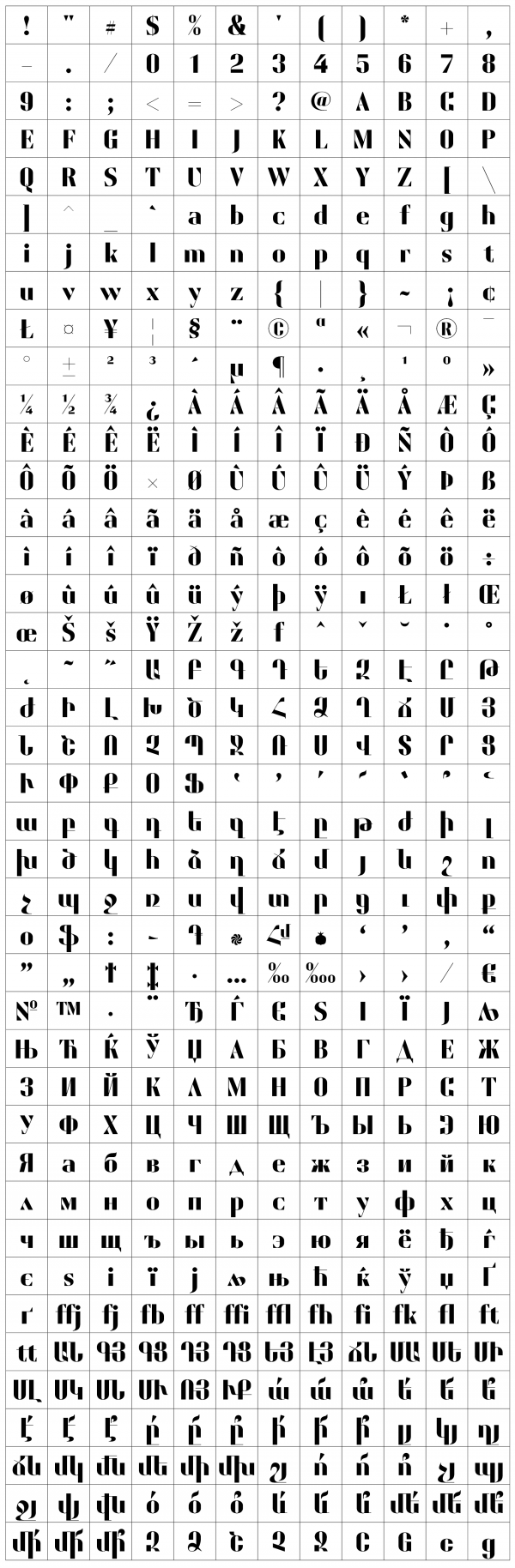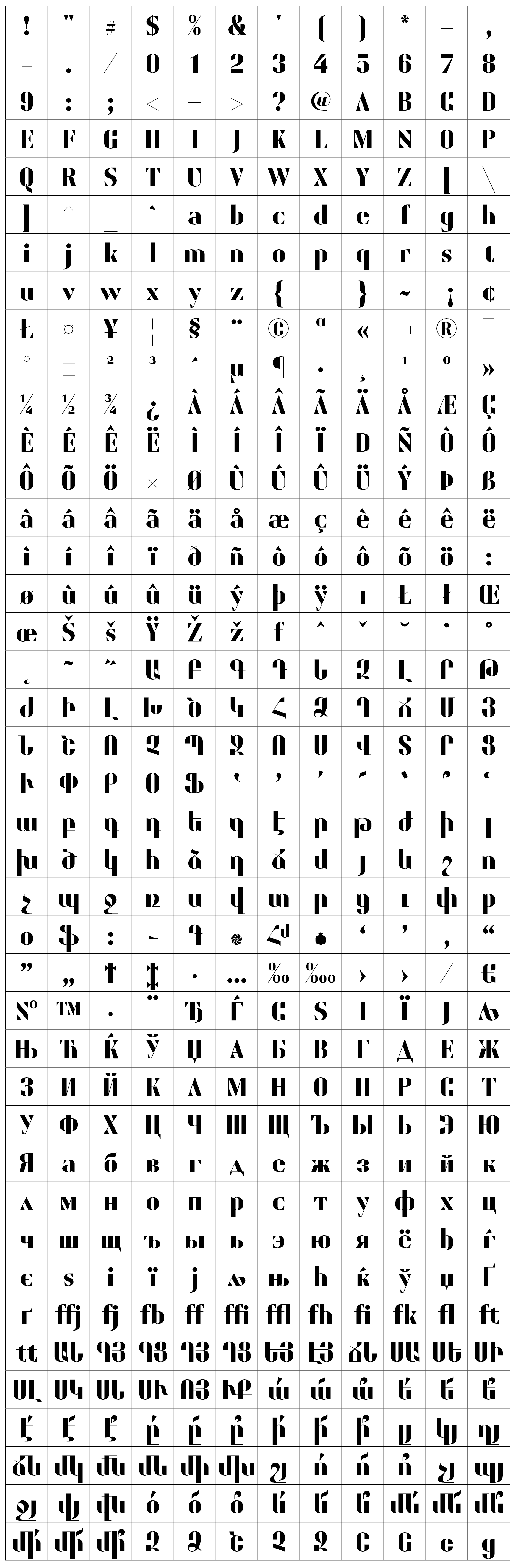
GHEA Crown ExtraBold
Design date: 2022
The font family includes Armenian, Latin Central European and Cyrillic alphabet systems.
The font can be used as a text and Display font.